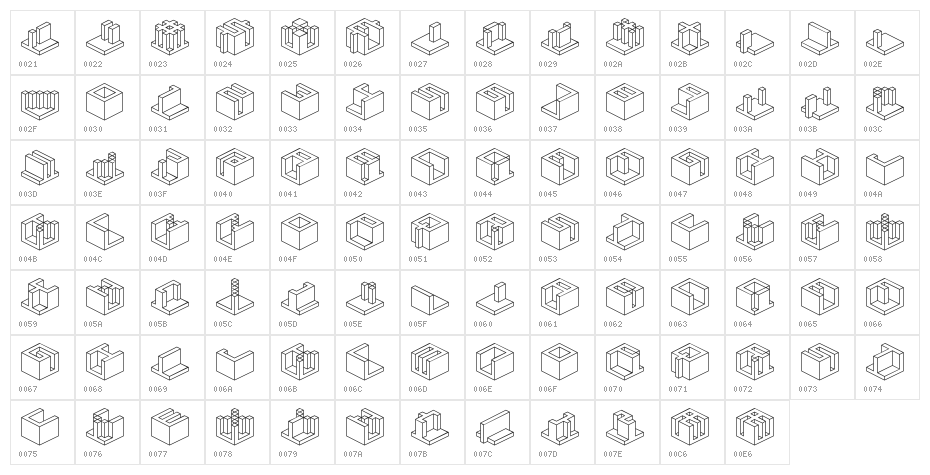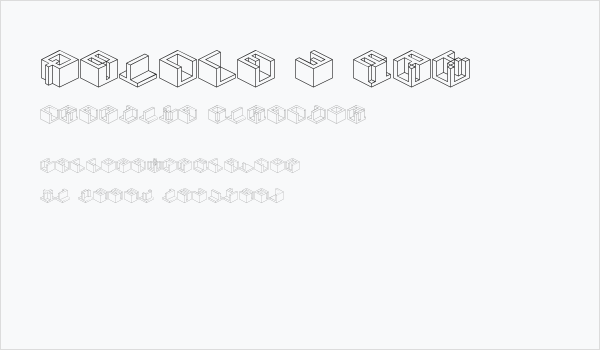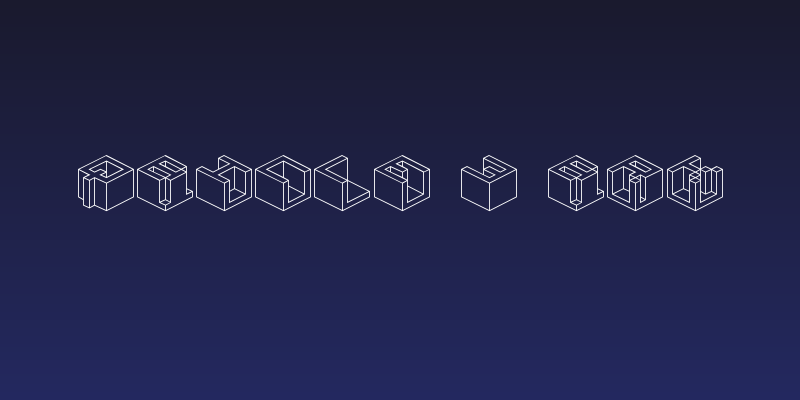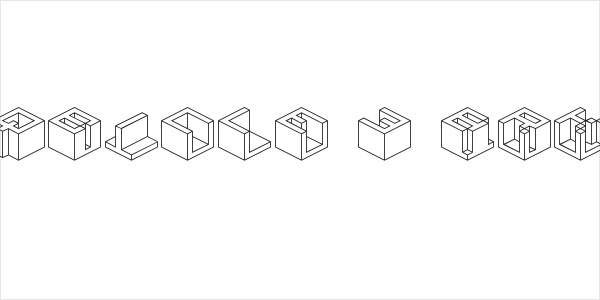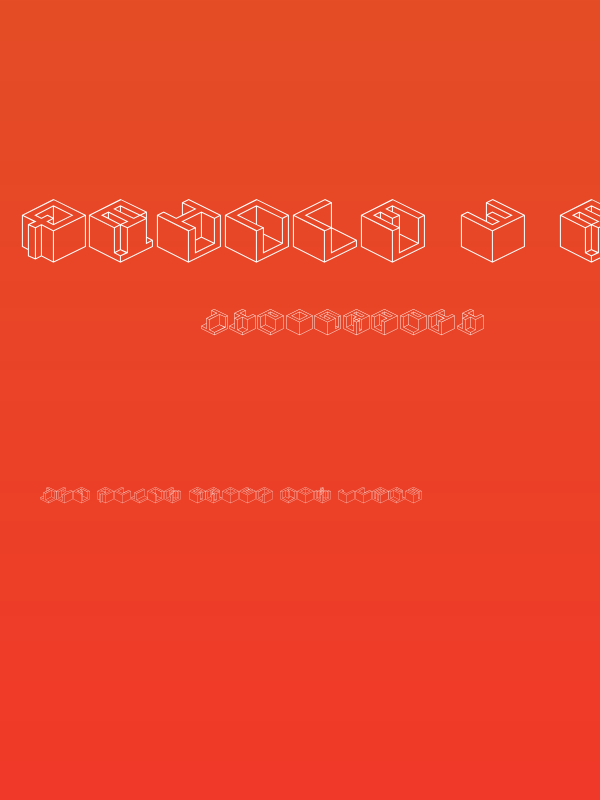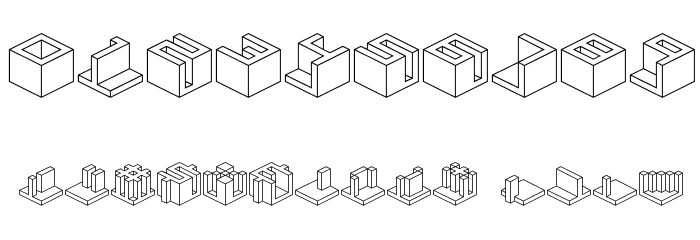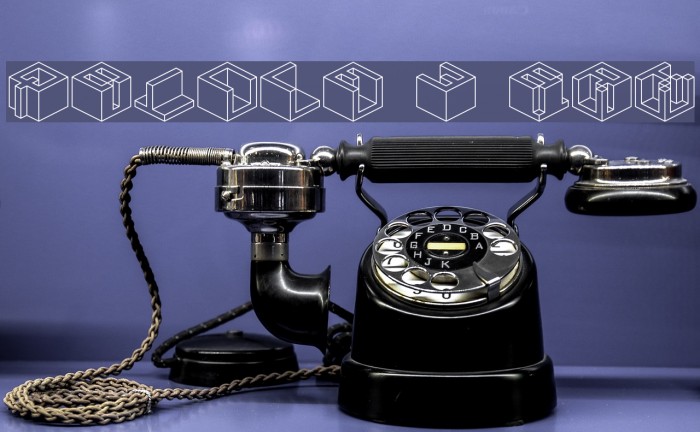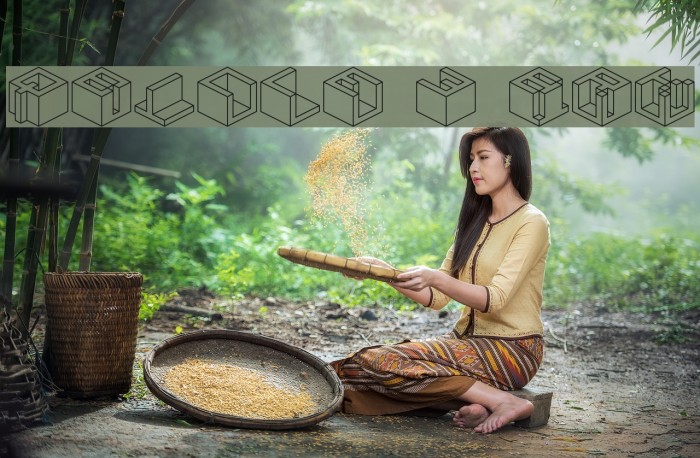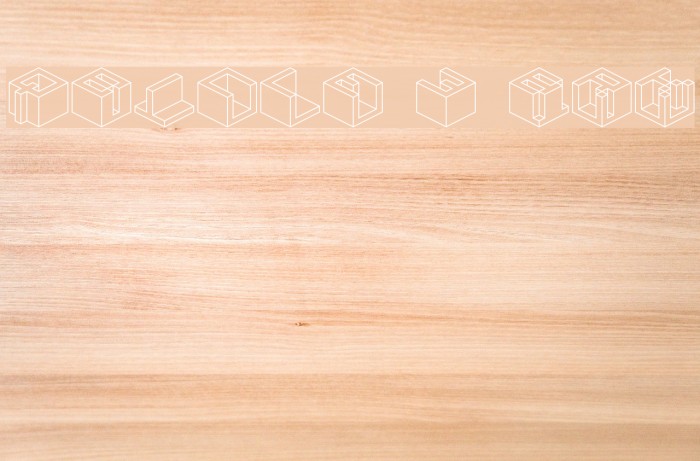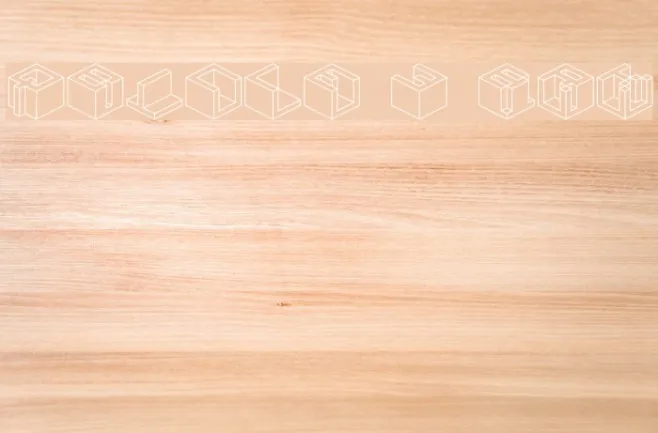
Qbicle 3 BRK Font
Qbicle 3 BRK Description
This font features a unique 3D isometric design, where each character is encapsulated within a cube-like structure. The geometric style gives it a modern and futuristic appearance, with each letterform constructed from bold lines that create a sense of depth and dimension. The characters are uniform in size, maintaining a consistent visual rhythm across the typeface. The design is highly decorative, making it suitable for creative and eye-catching projects. The font's structure emphasizes a strong architectural aesthetic, perfect for designs that require a bold statement.
| Proposed Projects | Ideal for posters, album covers, video game graphics, and branding that requires a modern, architectural look. |